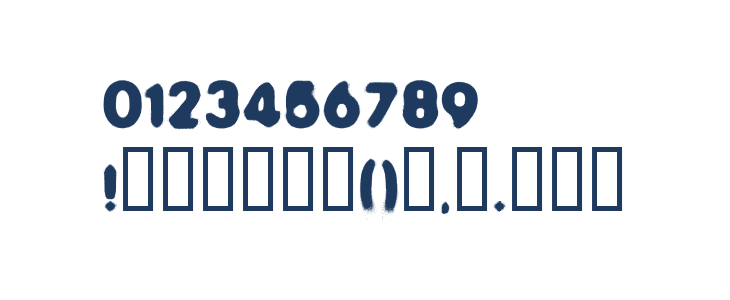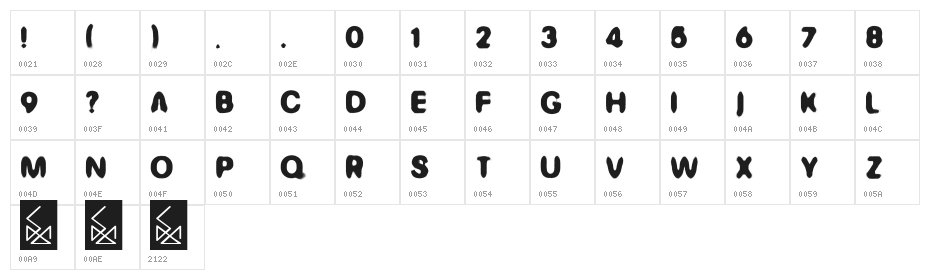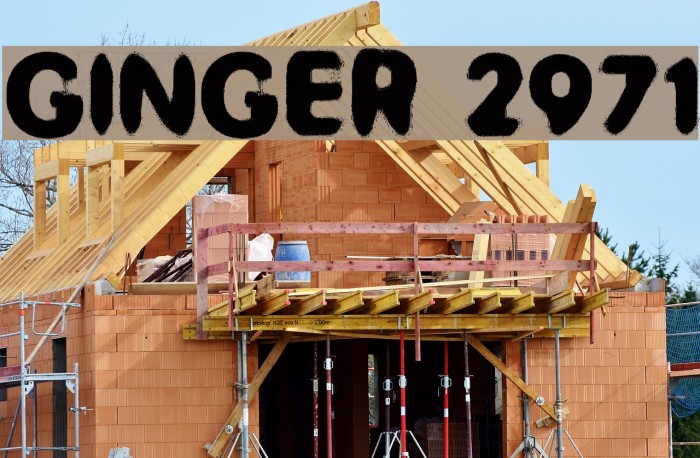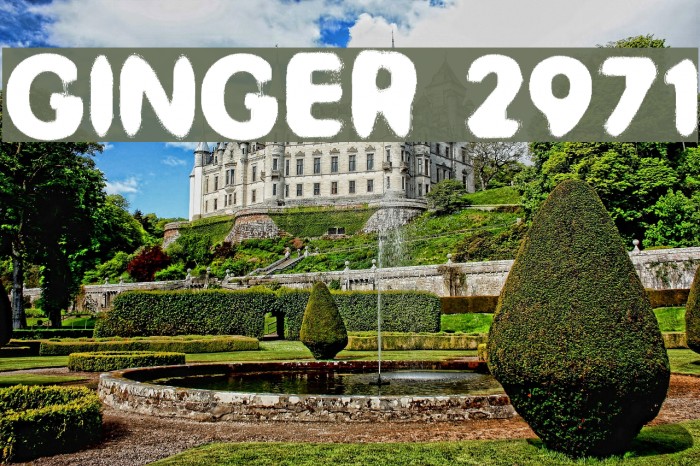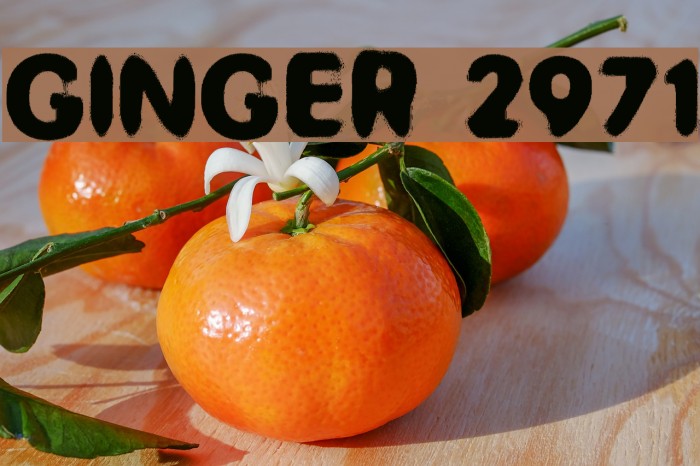
GINGER 2971 Font
GINGER 2971 Description
This font features a bold, playful style with a textured appearance that gives it a unique, artistic flair. The letters are rounded and have a slightly irregular edge, reminiscent of brush strokes or ink splatters. This adds a dynamic and energetic feel to the text, making it stand out. The numbers and special characters follow the same design, ensuring consistency across all elements. The overall look is modern yet whimsical, perfect for projects that require a touch of creativity and fun.